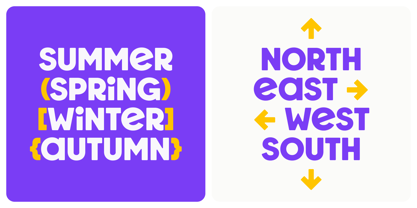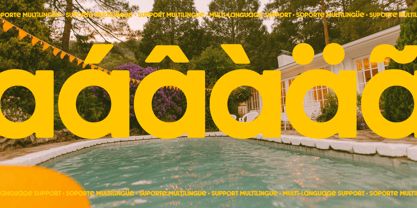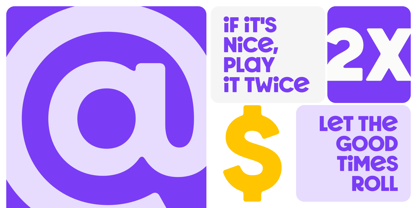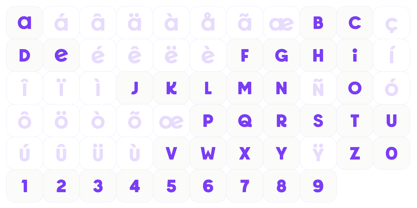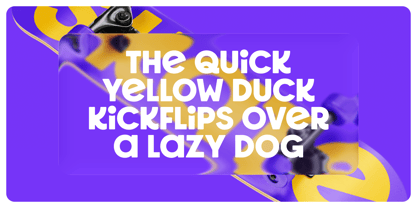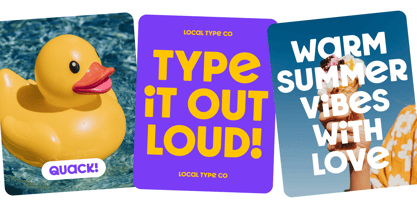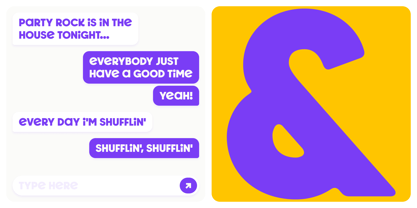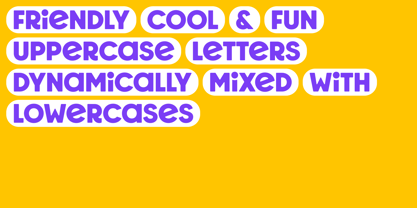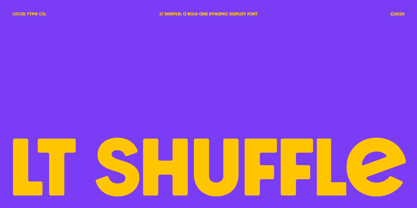
Shuffle
Shuffle is meant to be typed out loud. Serious enough to behave, fun enough not to.
Featuring a fun dynamic mix of uppercase and lowercase letters, the display variable typeface interpolates 2 axes, going from bold and bouncy to lighter and sharp — and anything in between.